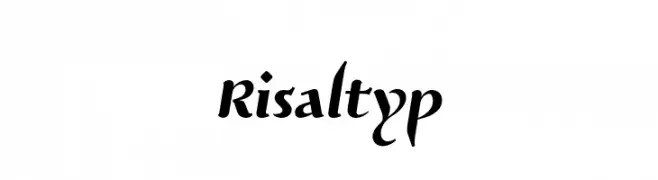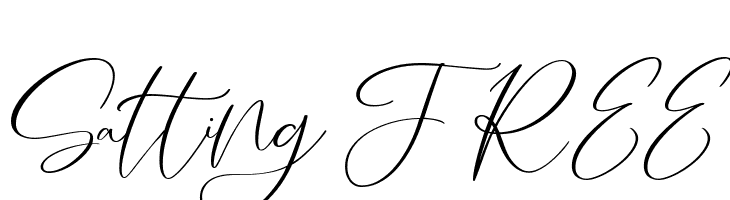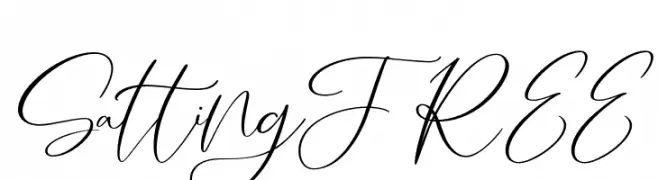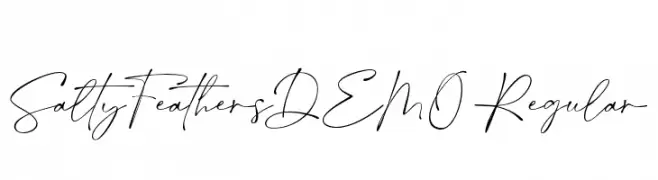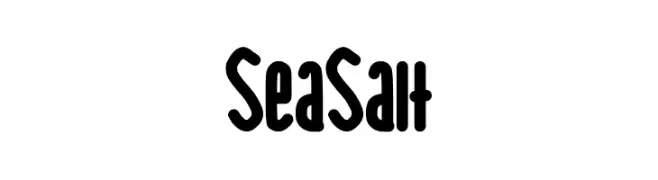
A playful, casual script font with smooth, flowing lines.
A graceful, handwritten script font with elegant, flowing strokes.
A playful, bold font with rounded edges and a slightly condensed form.
An elegant script font with flowing, interconnected cursive letters.
An elegant script font with flowing, interconnected letters and graceful curves.
A flowing cursive script font with elegant, connected letters.
A flowing, cursive font with a natural handwritten style.
A bold, brush-style font with dynamic strokes and artistic flair.
A playful, bold font with rounded edges and a slightly condensed form.
A calligraphic font with elegant curves and sharp serifs.